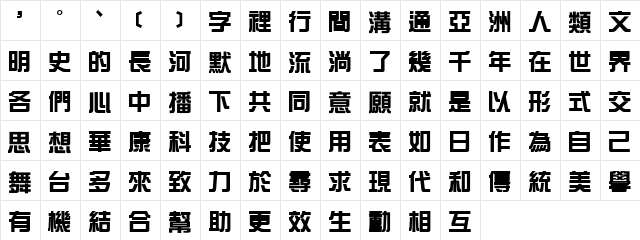
DFZongYiBold1B Regular Font Preview
DFZongYiBold1B Regular
DFZongYiBold1B Regular Font Details
Design Context for DFZongYiBold1B Typeface
DFZongYiBold1B is a composed and adaptable typeface that performs quietly and consistently across a wide range of design contexts. The heavy weight commands attention and anchors typographic hierarchies.